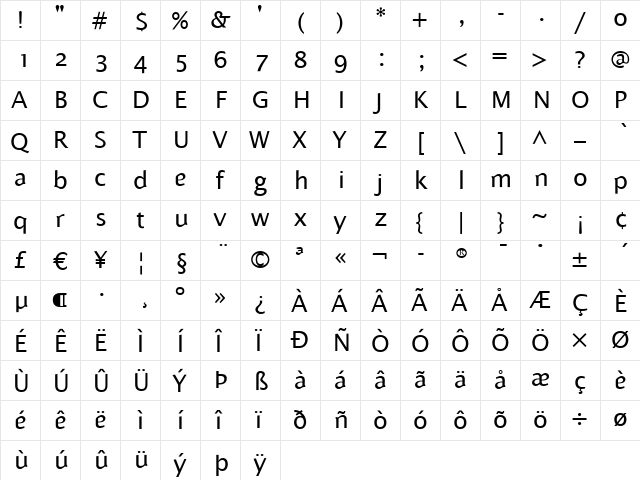
Alphabet2 Regular
Design Context for Alphabet2 Typeface
Alphabet2 offers clean, dependable letterforms without strong stylistic allegiance, making it a practical choice for designers who need flexibility.
Pro Tip: Pair Alphabet2 with a font of contrasting weight or personality to build a more expressive typographic hierarchy.